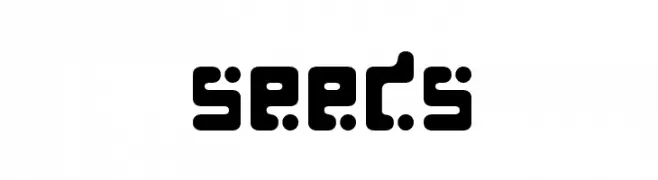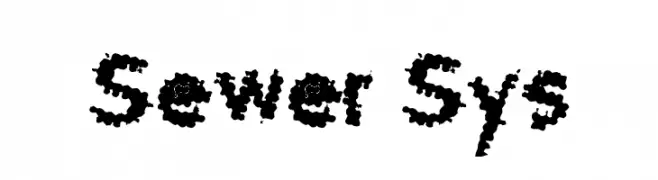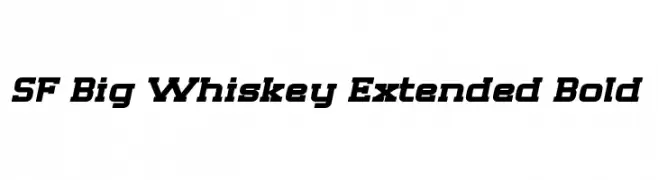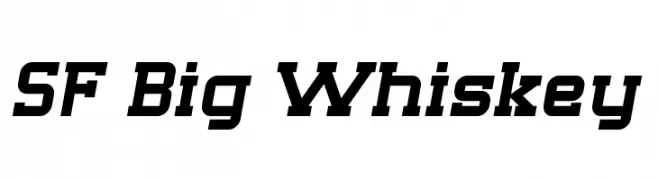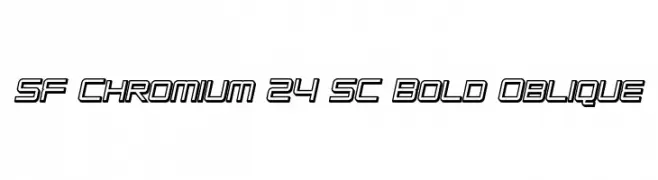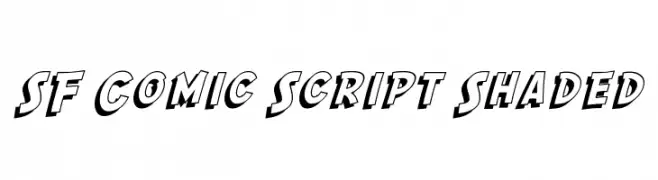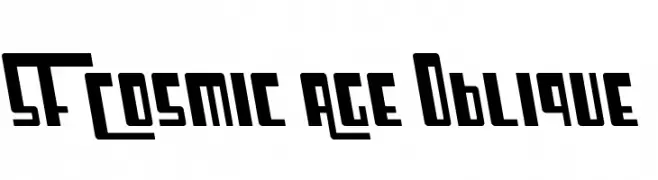
( Fonts by Typography in Decay )
A bold, rounded font with a futuristic and playful design.
( Fonts by Andreas Hofeld - www.fontgrube.de )
A bold, angular font with a modern yet traditional aesthetic, ideal for impactful designs.
( Fonts by ShyFonts )
A bold, dynamic font with a modern yet vintage flair.
( Fonts by ShyFonts )
A bold, extended font with a dynamic, vintage-inspired style.
( Fonts by ShyFonts )
A bold, oblique, and futuristic outlined font with geometric precision.
( Fonts by ShyFonts )
A bold, playful font with a comic book style and shadowed letters.
( Fonts by ShyFonts )
A bold, futuristic font with angular, oblique letterforms.